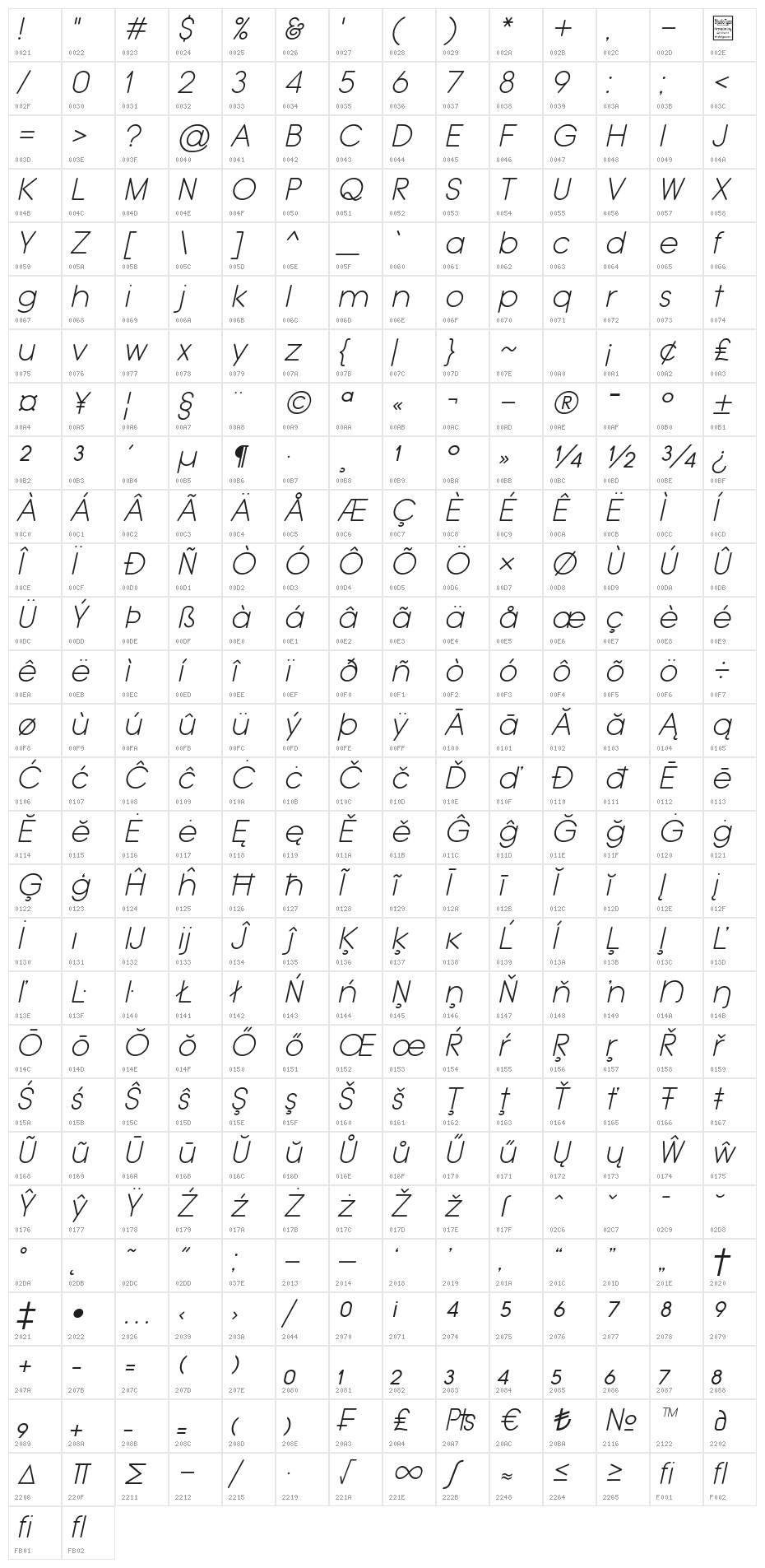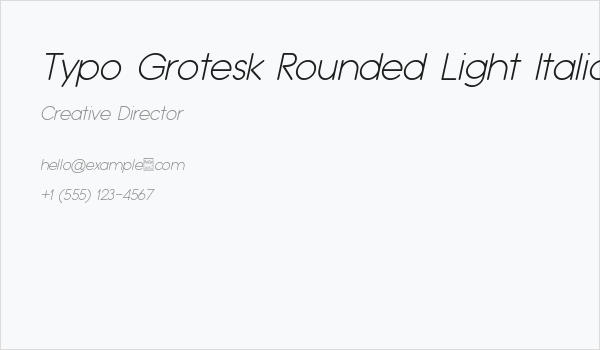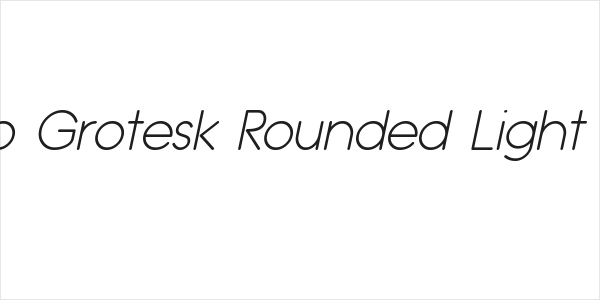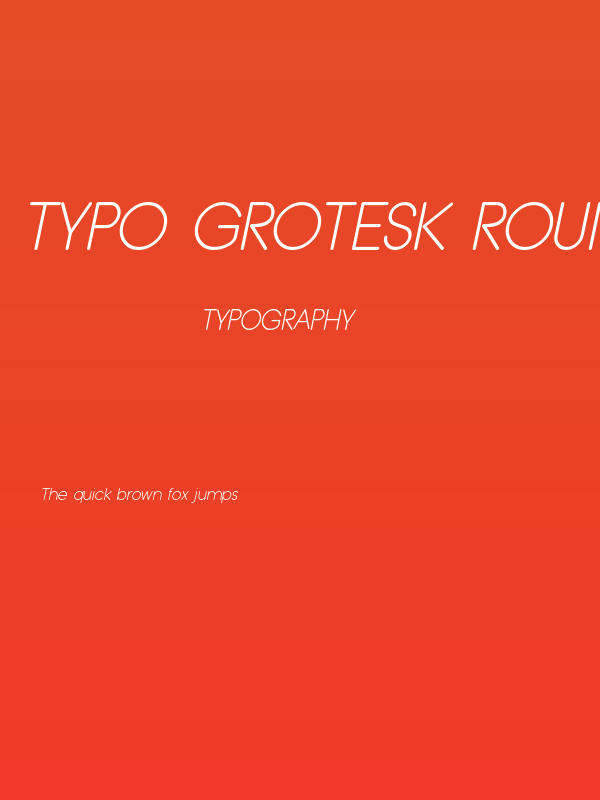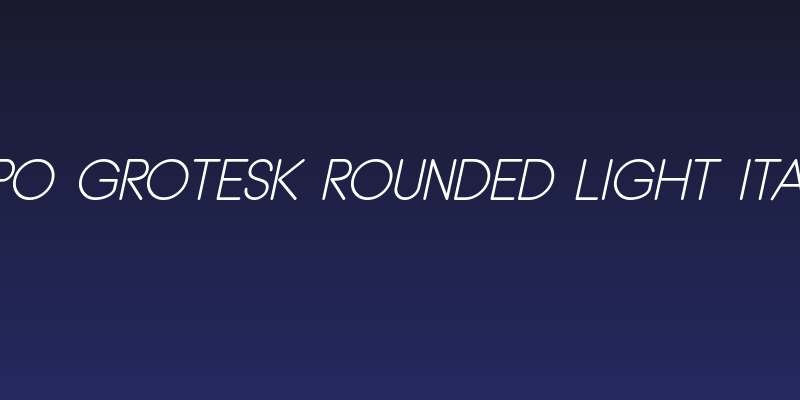
Typo Grotesk Rounded Light Italic Font
Typo Grotesk Rounded Light Italic Description
This font features a clean, modern aesthetic with rounded edges that give it a friendly and approachable feel. The characters are designed with a light weight, contributing to an airy and elegant appearance. The italic style adds a sense of motion and fluidity, making it suitable for dynamic and creative projects. The uniformity in stroke width ensures readability, while the rounded terminals soften the overall look. This font is versatile, ideal for both digital and print media, and can be used in various design contexts.
| Proposed Projects | Ideal for branding, advertising, web design, and editorial projects where a modern and friendly tone is desired. |